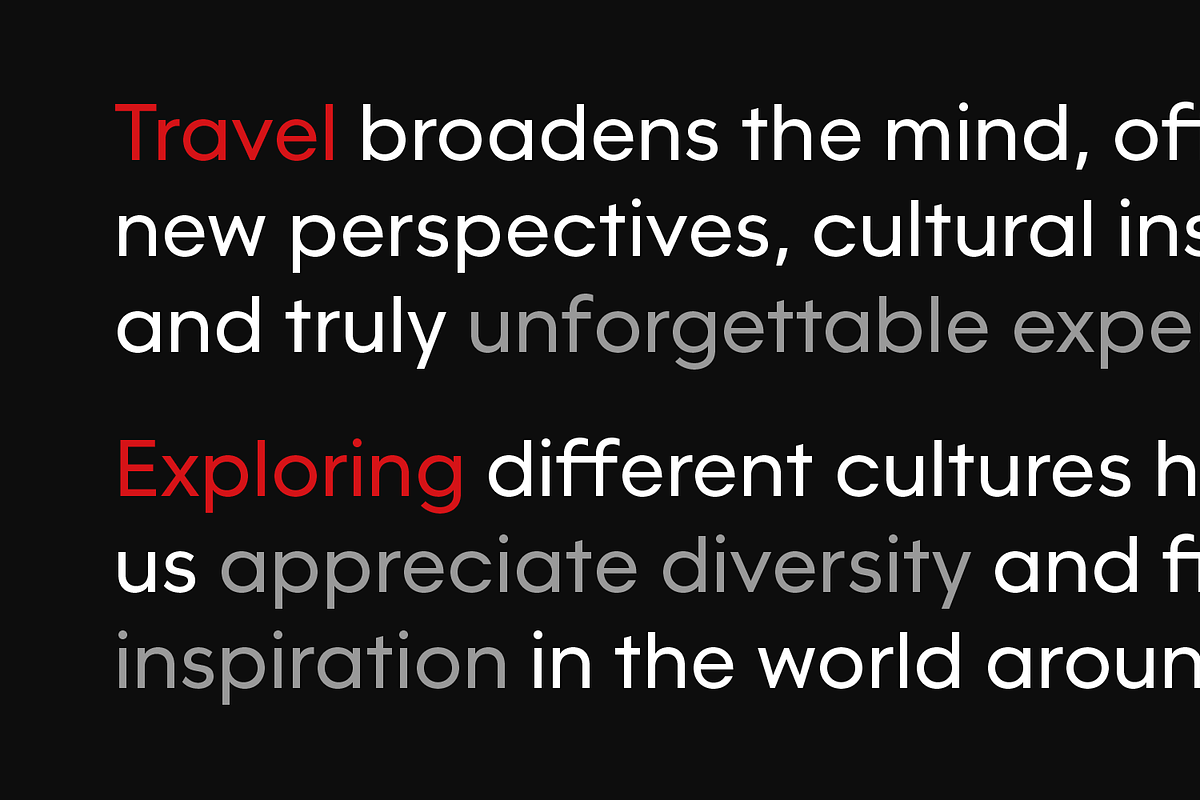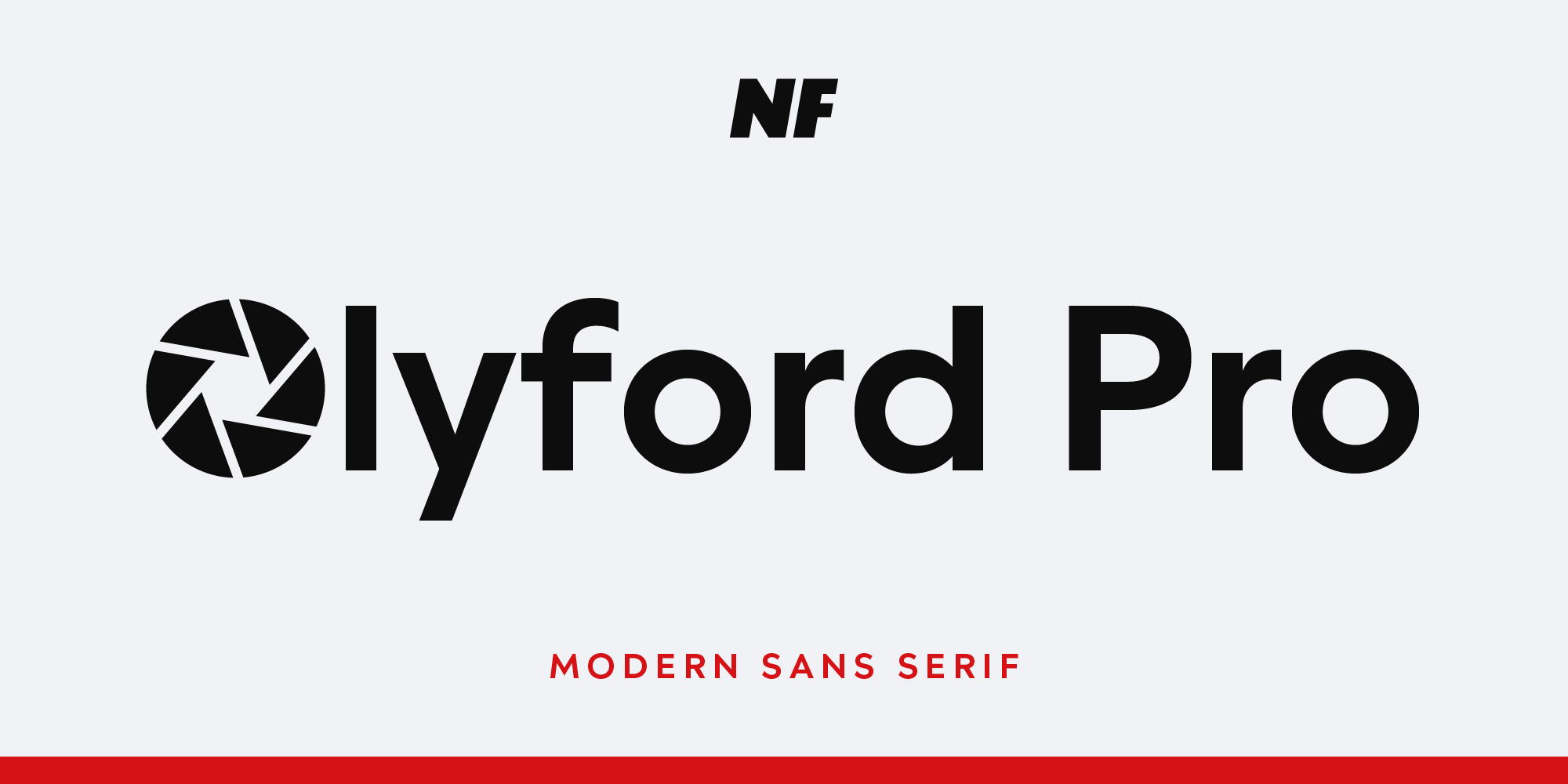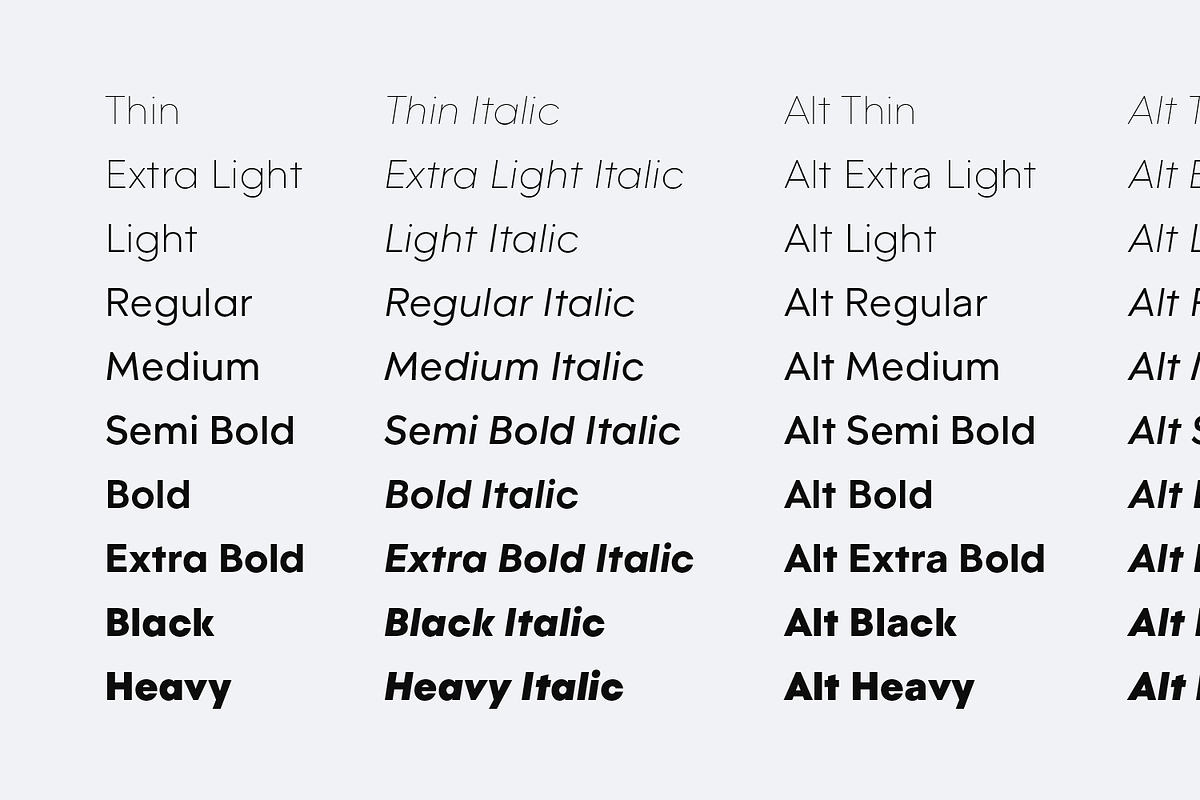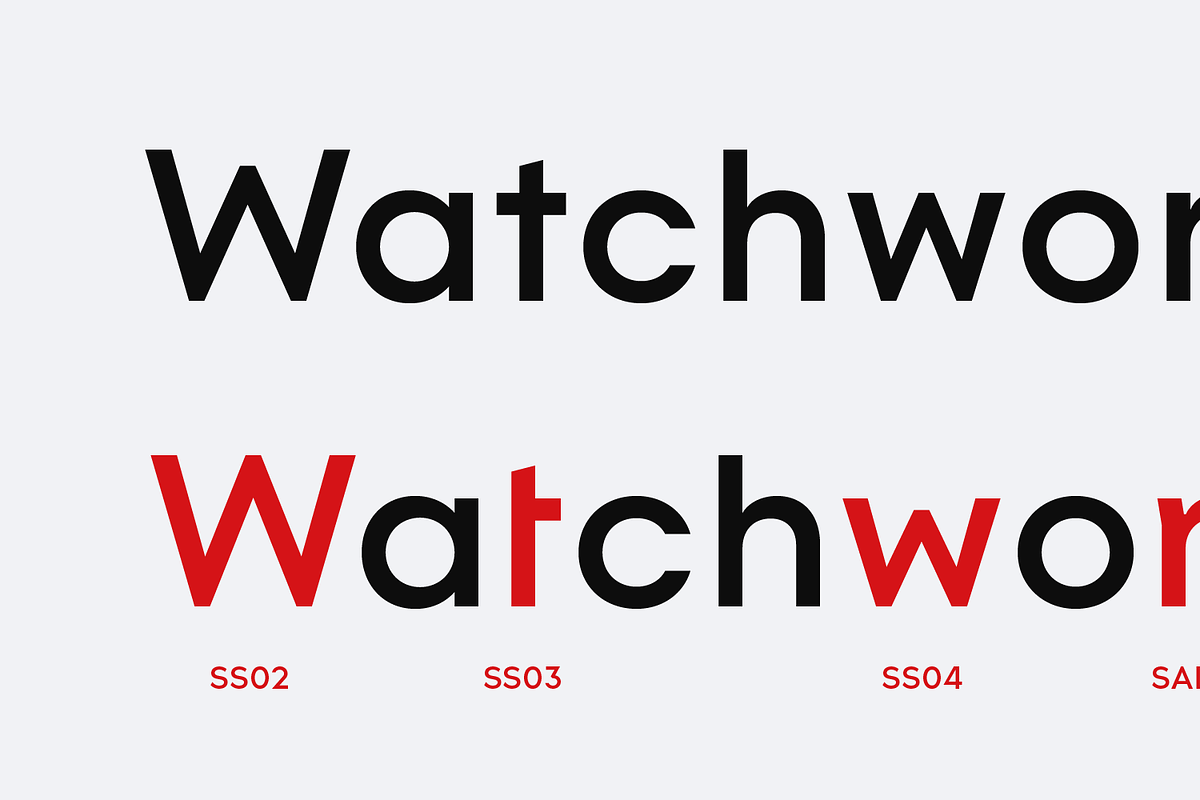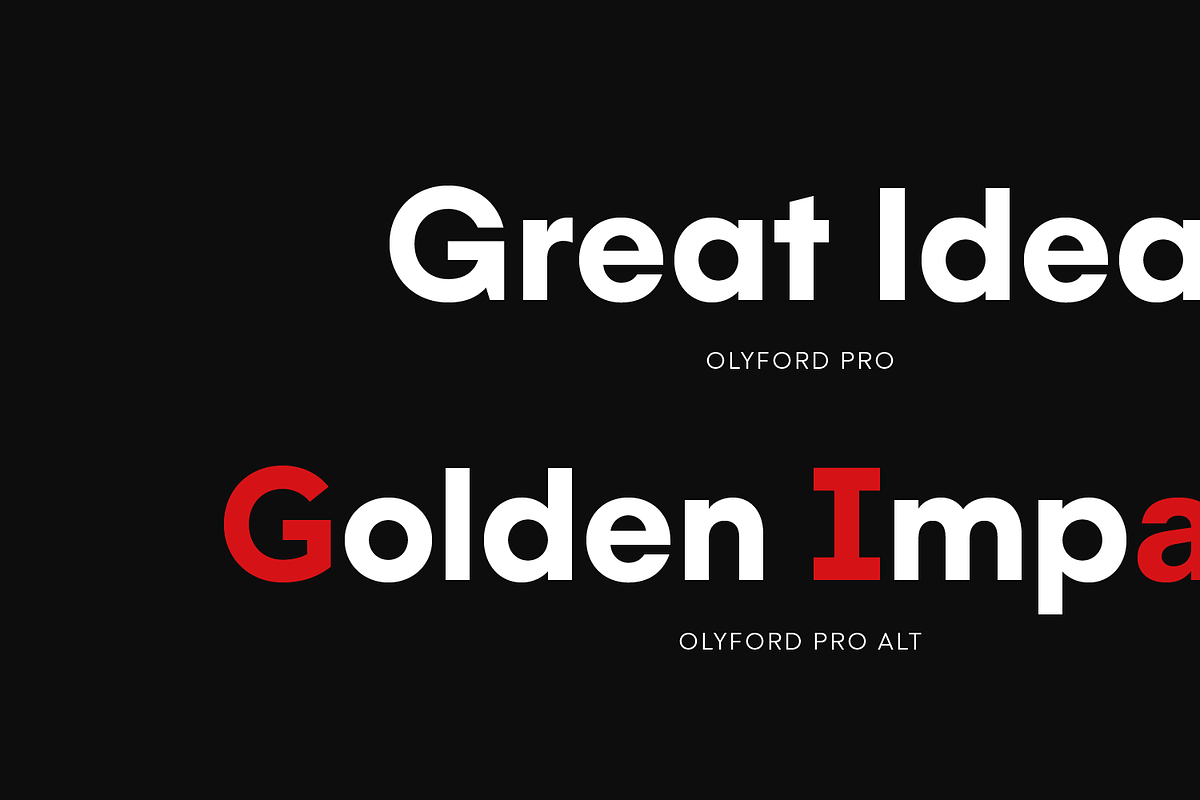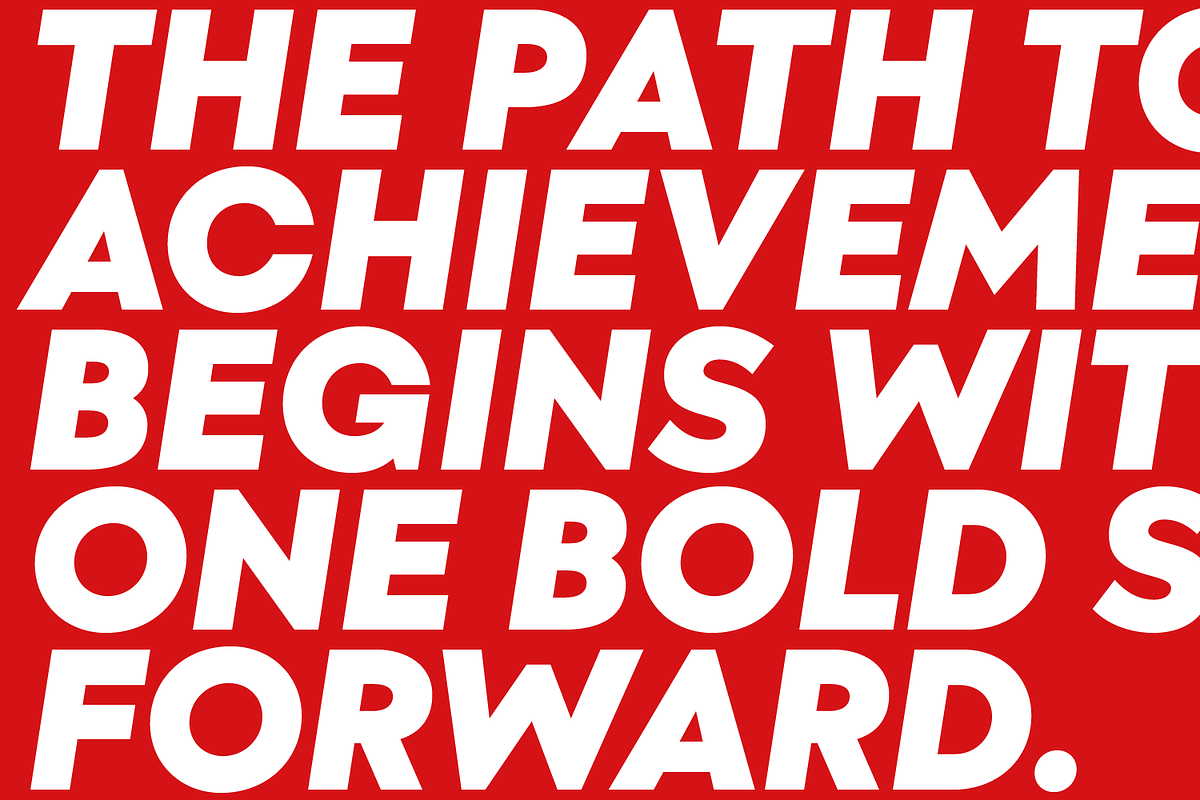
Olyford Pro - Sans Serif Typeface
Olyford Pro is the enhanced professional version of the Olyford typeface, designed for both web and print. The Complete Family offers 40 fonts, comprising Olyford Pro (20 fonts) and Olyford Pro Alt (20 fonts), the latter featuring alternate designs for G, I, and a. With true italics, over 1,000 glyphs, 36 OpenType features, and support for Latin and Cyrillic, Olyford Pro is a highly versatile choice for a wide range of design projects.